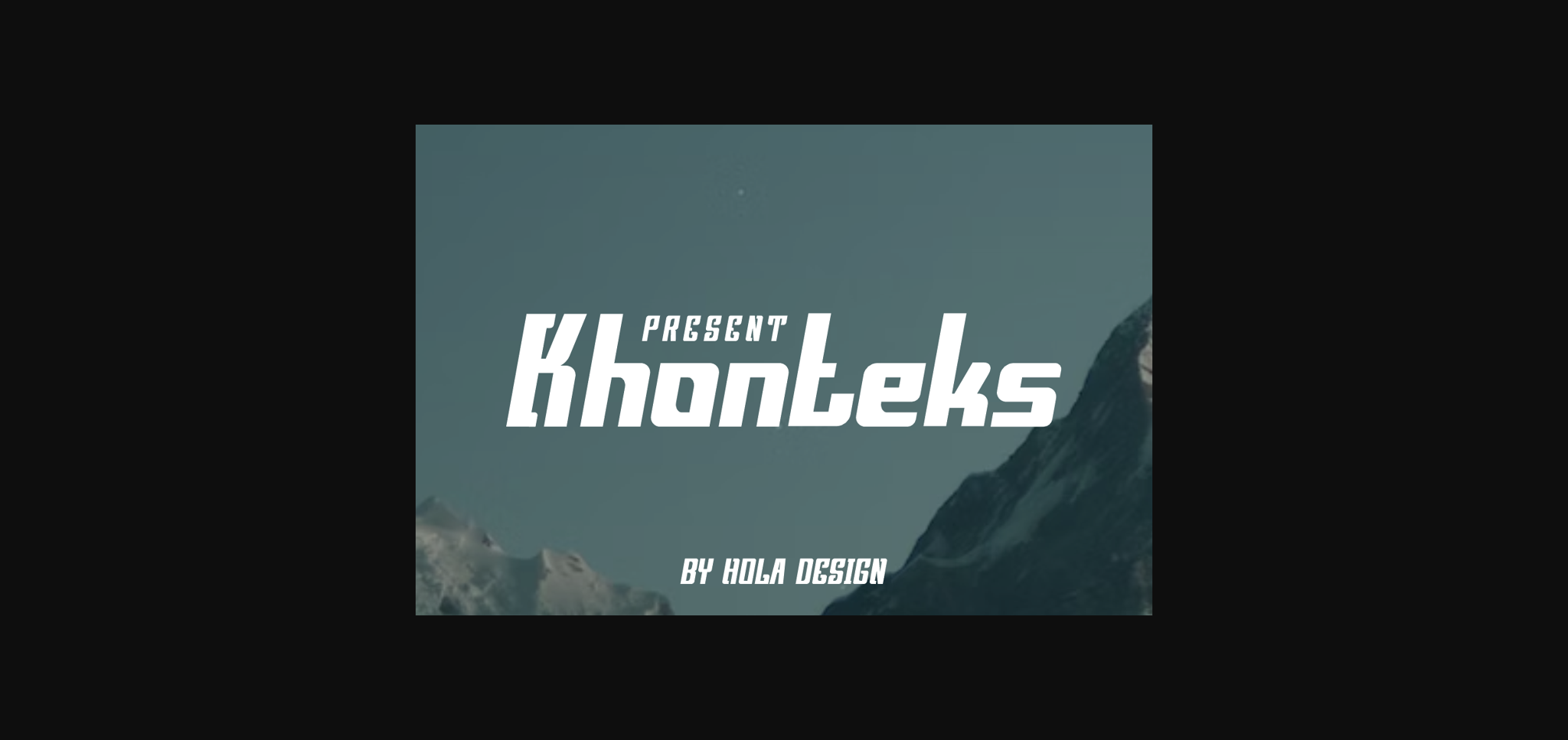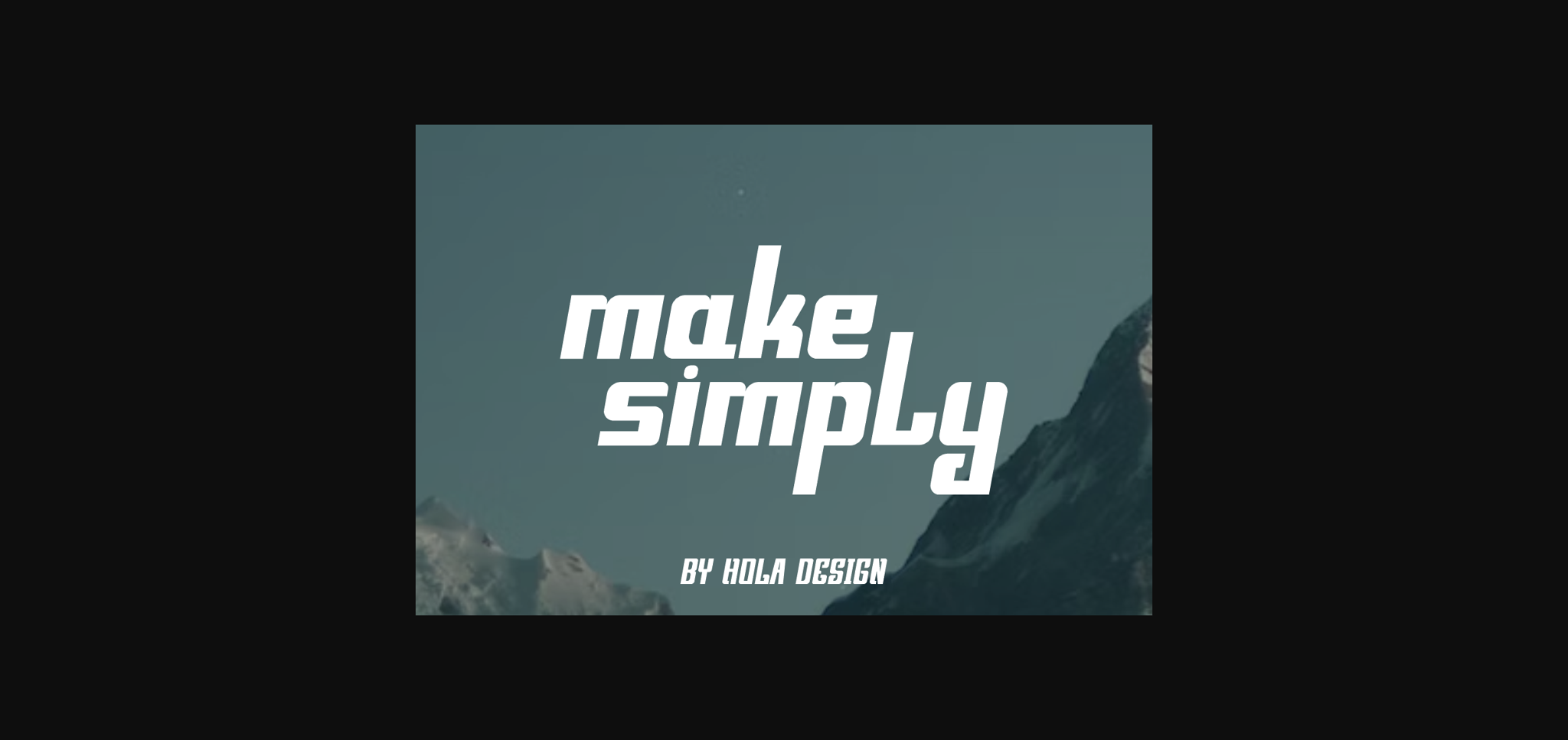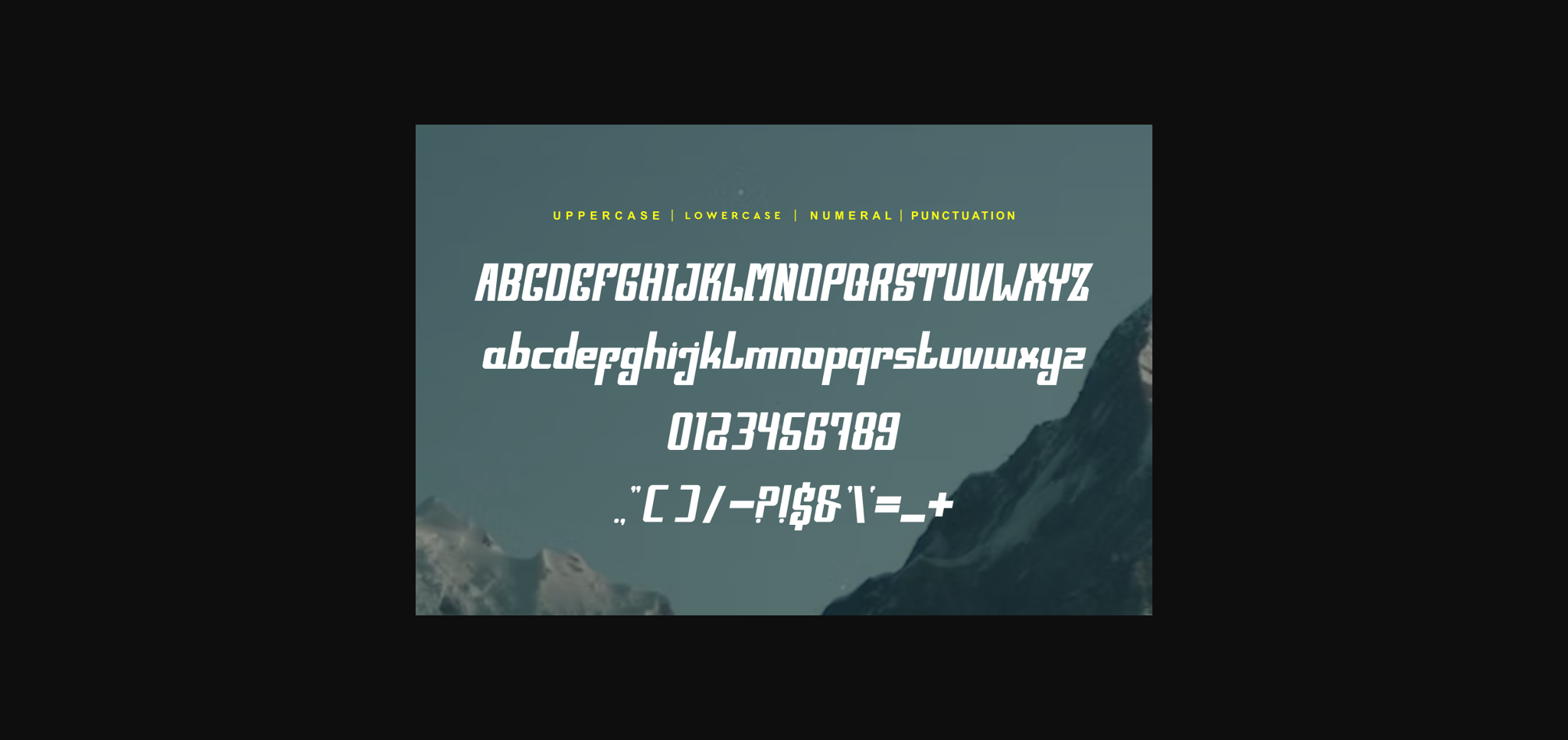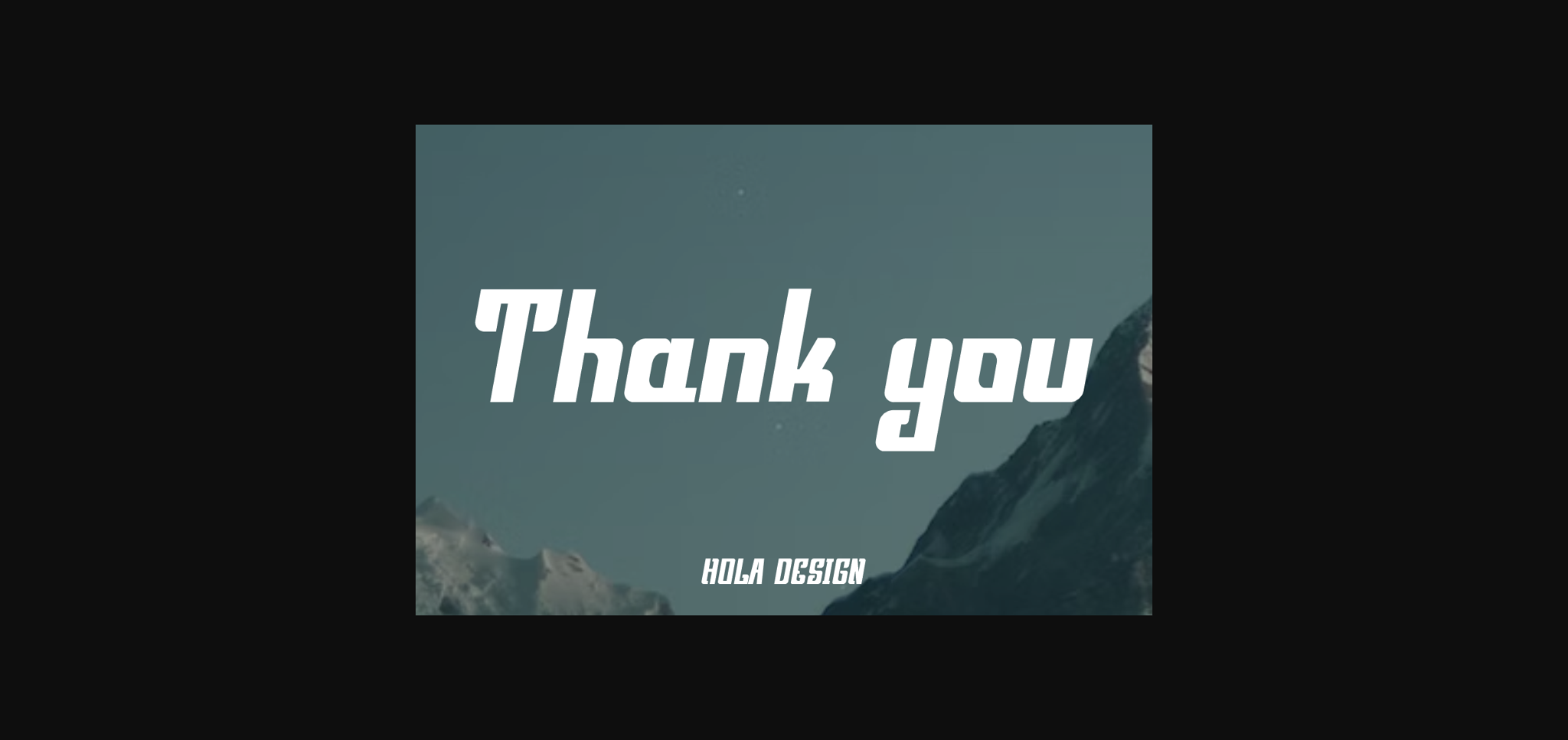
Khonteks Font
About Khonteks Font
Khonteks is a sleek and dynamic sans-serif font with a distinctive slanted design. Its sharp lines and contemporary look exude modernity and innovation. Perfect for headlines, logos, and branding projects, Khonteks adds a touch of sophistication and style to any design that demands attention and creativity.